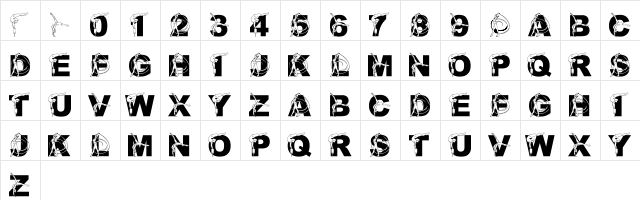
LMS Rhythmic Writing Regular
Design Context for LMS Rhythmic Writing Typeface
LMS Rhythmic Writing is a composed and adaptable typeface that performs quietly and consistently across a wide range of design contexts.